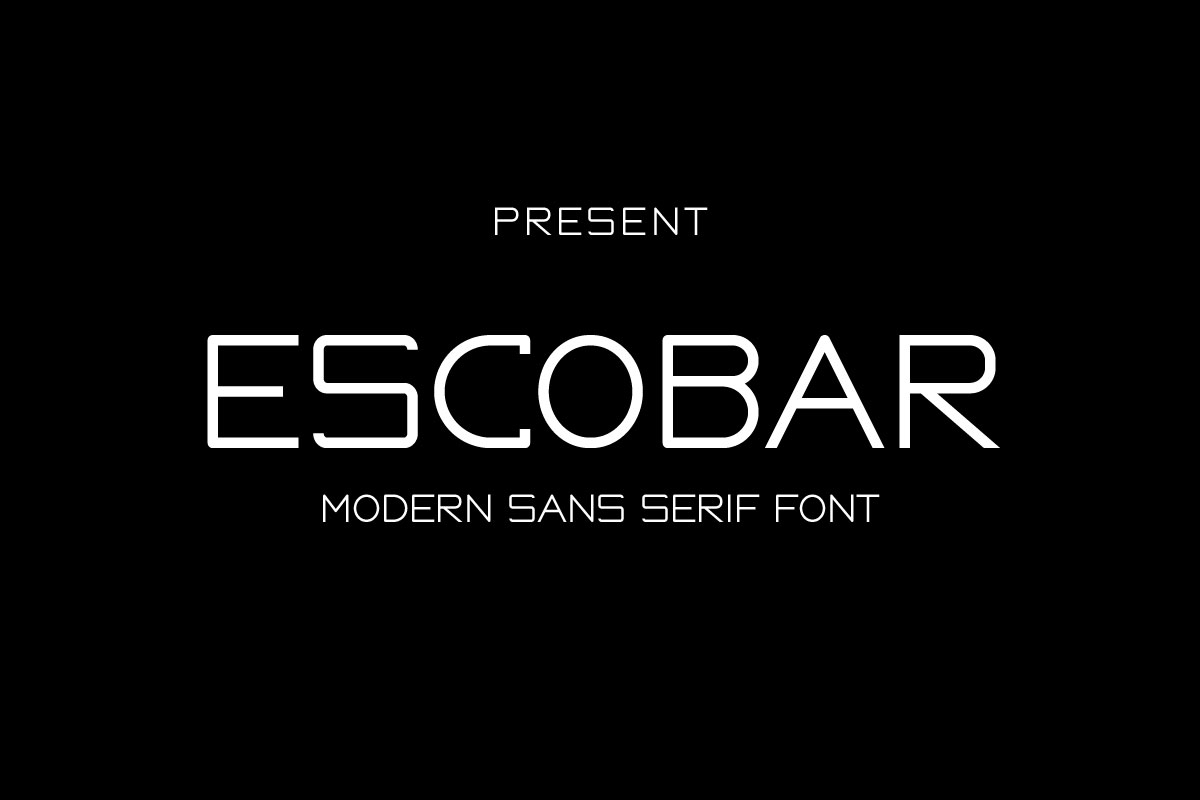
Escobar - Modern - Sans Serif - Fonts
Escobar is a sleek and elegant sans serif font. Use this eye catching typeface to elevate your headlines, logos, business cards, social media, invitations, flyers and more.